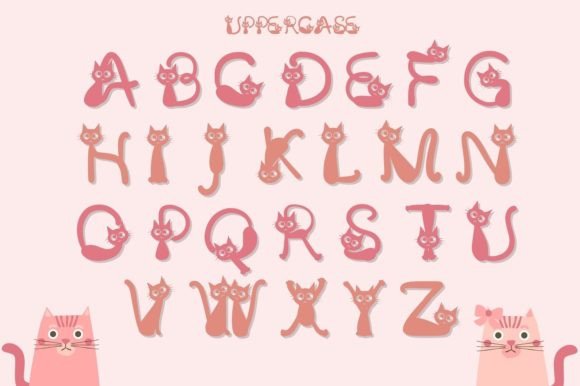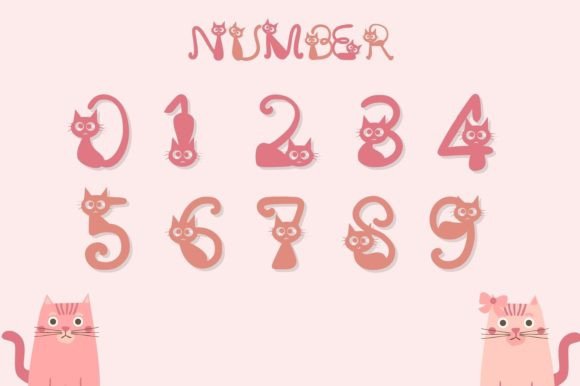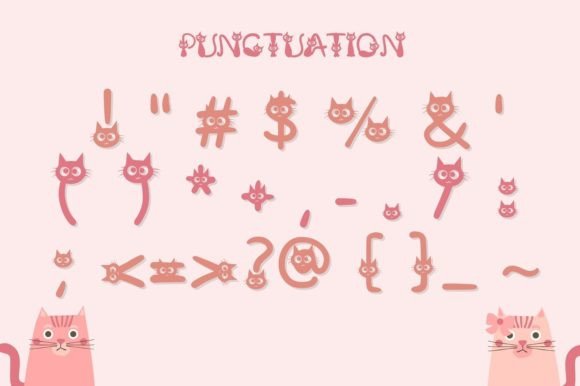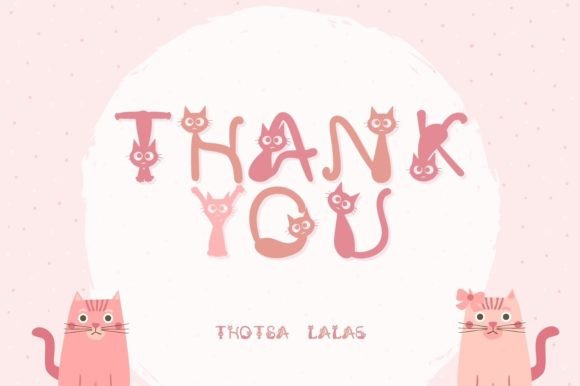
Meet Your New Feline Font Obsession
Have you ever found yourself staring at a cute cat meme, wishing you could turn its adorable face into a work of art? That’s exactly what happened to me, and it led me to discover the enchanting Cat Round Eyed Font. This delightful decorative font is a cat lover’s dream come true, perfect for adding a touch of whimsy to various design projects.
With its fancy and cute design, the Cat Round Eyed Font is a valuable addition to any designer’s toolkit. Whether you’re creating invitation embellishments, wall art, or beverage logos, this font is sure to bring a smile to your face and a touch of personality to your designs. Its seamless patterns and adorable characters make it a must-have for anyone looking to add a feline flair to their work.
Cat Round Eyed Font Key Features
- Font Family: Cat Round Eyed is a unique, hand-drawn font designed to resemble cartoon-style eyes.
- Unique Characteristics: The font’s distinctive rounded shape and playful design make it ideal for adding a whimsical touch to designs, logos, and branding materials.
Designer Review: Cat Round Eyed Font
Overall, I have mixed feelings about the Cat Round Eyed Font. While it has some unique qualities that can make it stand out, it also has its limitations.
- The Cat Round Eyed Font’s playful and quirky design can add a touch of whimsy to any project.
- The rounded edges and subtle curves give the font a friendly and approachable feel.
- The font is well-suited for children’s books, cartoons, and other projects that require a fun and youthful vibe.
- The font can be difficult to read at smaller font sizes due to its rounded design.
- The font may not be suitable for professional or formal projects where a more serious tone is required.
- The font’s unique design may not be to everyone’s taste, and some users may find it distracting or annoying.
The Cat Round Eyed Font is a fun and playful font that can add a unique touch to certain projects. However, its limitations make it less versatile than other fonts. If you’re looking for a font that can add a touch of whimsy to your project, the Cat Round Eyed Font may be worth considering. But if you need a font that’s more professional or easy to read, you may want to look elsewhere.
To get the most out of Cat Round Eyed Font, try combining it with bold or italic text styles to create a playful and eye-catching effect. Experiment with different font sizes and colors to add emphasis and visual interest to your text.
Common use cases for Cat Round Eyed Font include:
- Children’s book illustrations and design.
- Playful advertising and marketing materials.
- Wh